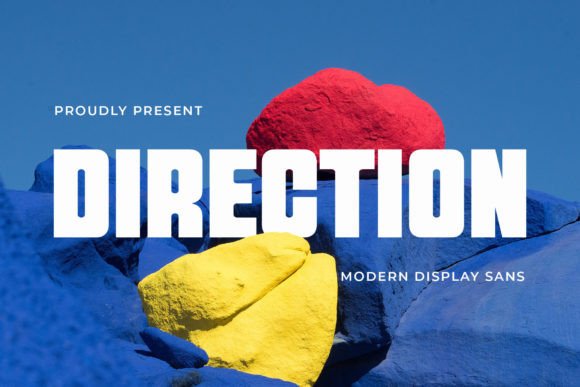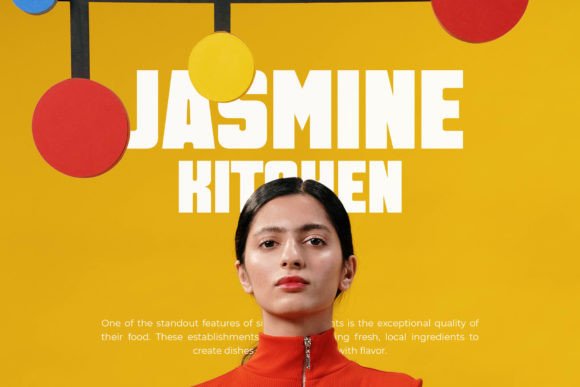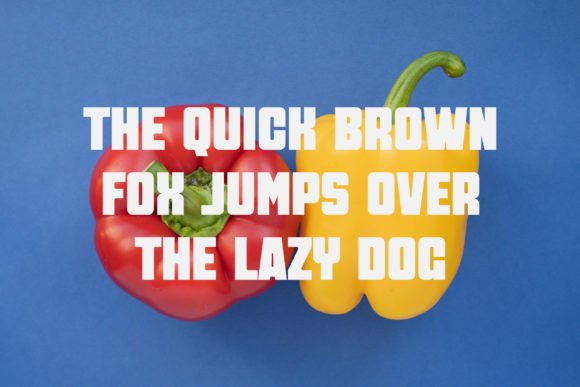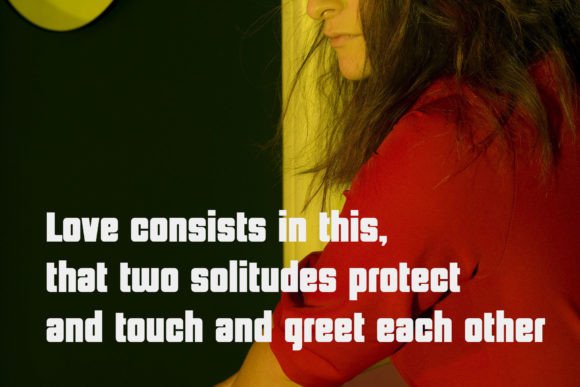
Direction Font: A Bold & Modern Display Sans Serif
About the Direction Font
Introducing the Direction Font, a beautifully crafted typeface designed to elevate your creative projects. Introducing Direction Modern Display Sans
Direction is a modern and simple font, best used as a display for headings, logos, branding, magazines, product packaging, and invitations. Direction comes with clean lines and smooth curves giving any project an extra touch of class.
Direction’s modern, clean aesthetic makes it ideal for headlines, logos, and short-form text in branding materials and packaging. Its strong, yet refined forms lend themselves well to projects requiring a sophisticated yet approachable feel, such as high-end product launches or minimalist branding. Avoid using Direction for large blocks of body text or UI elements; its display nature makes it less legible at smaller sizes.
Pairing Direction effectively depends on the desired emphasis. For a bold statement, consider pairing it with a classic serif like Garamond or a geometric sans-serif such as Futura. To soften its impact and create a more approachable feel, a script font like Playfair Display or a rounded sans-serif like Lato works well.
Direction exudes a confident, modern personality. It is best suited for brands seeking to project a sense of sophistication and style without appearing overly austere or cold.
Direction Font Usage Examples
Direction Font Example